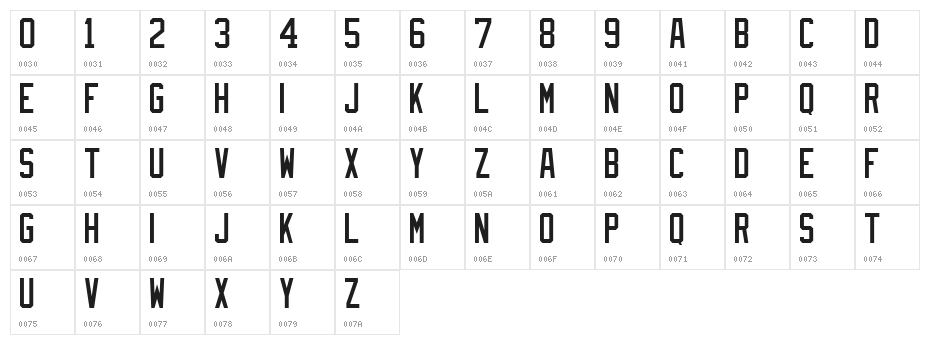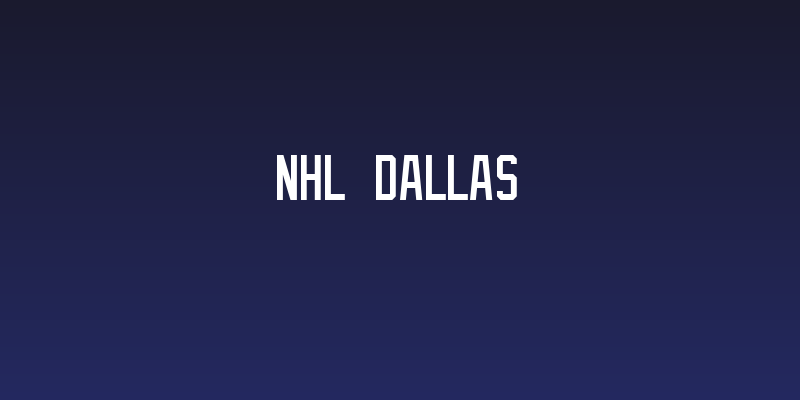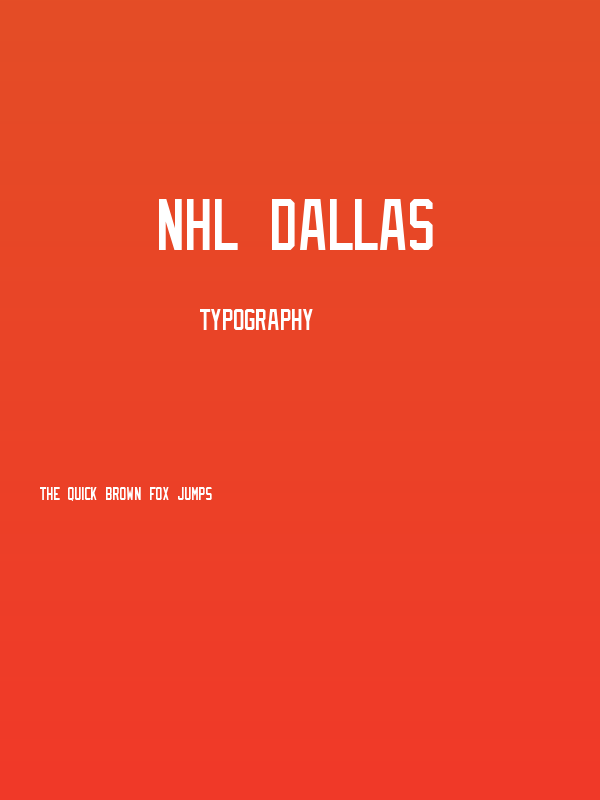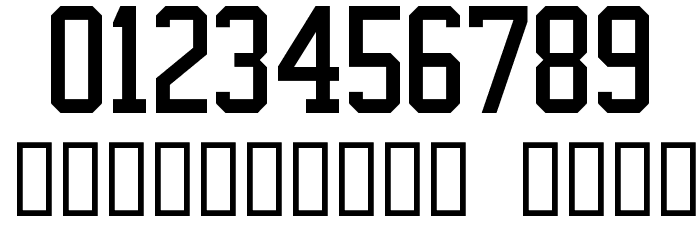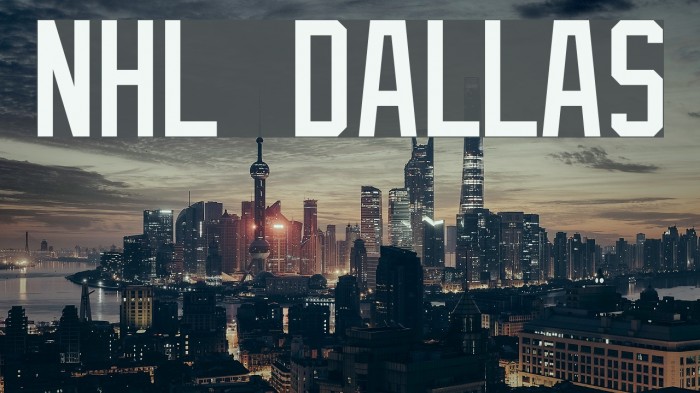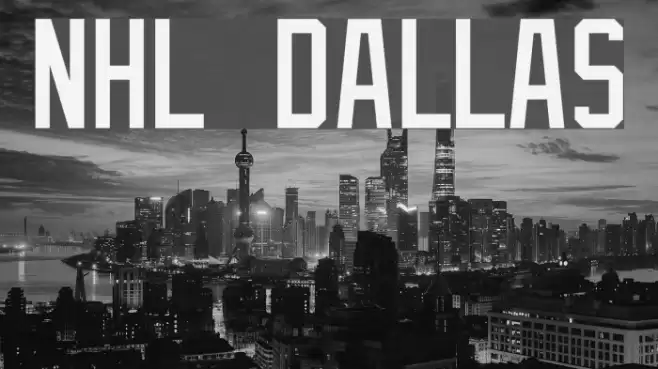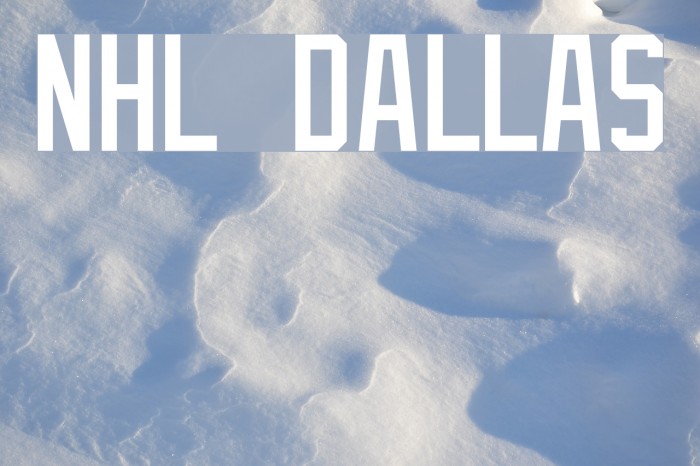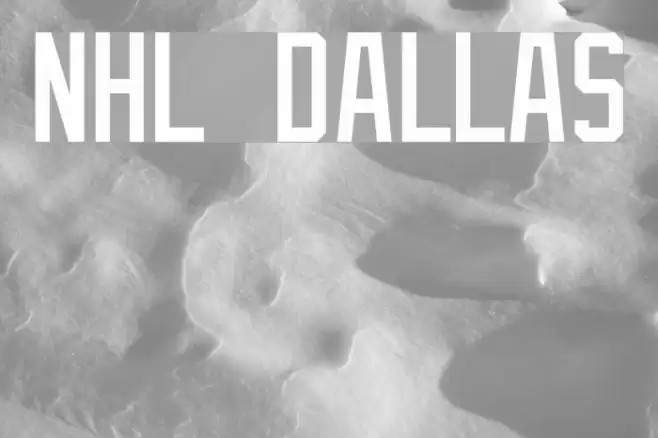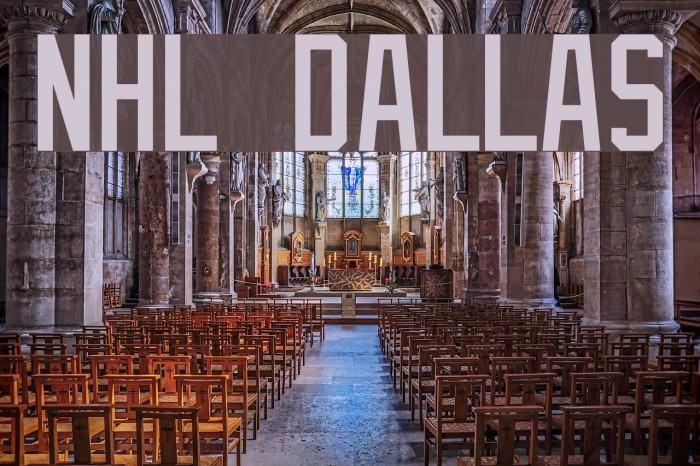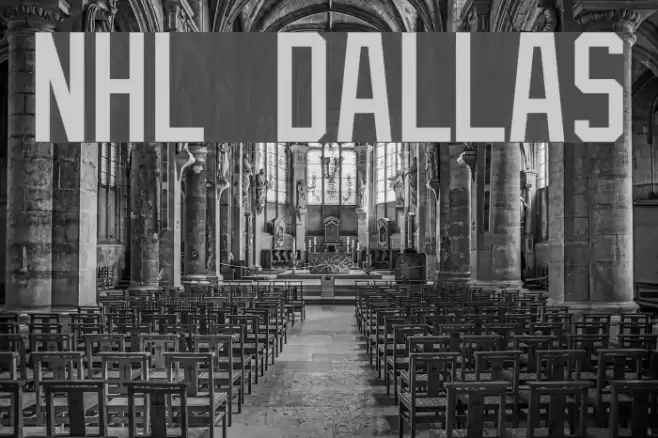
NHL Dallas Font
NHL Dallas Description
This font features a bold and geometric design, characterized by its strong, angular lines and uniform stroke width. The uppercase letters are particularly striking, with a blocky, industrial feel that conveys strength and stability. The numbers and special characters maintain this robust aesthetic, ensuring consistency across all elements. The font's clean and modern appearance makes it suitable for a variety of applications, particularly where a bold statement is needed. Its lack of serifs and minimal contrast between strokes give it a contemporary edge, while the uniform spacing between characters ensures readability.
| Proposed Projects | Ideal for sports branding, posters, headlines, and any project requiring a bold, impactful typeface. |